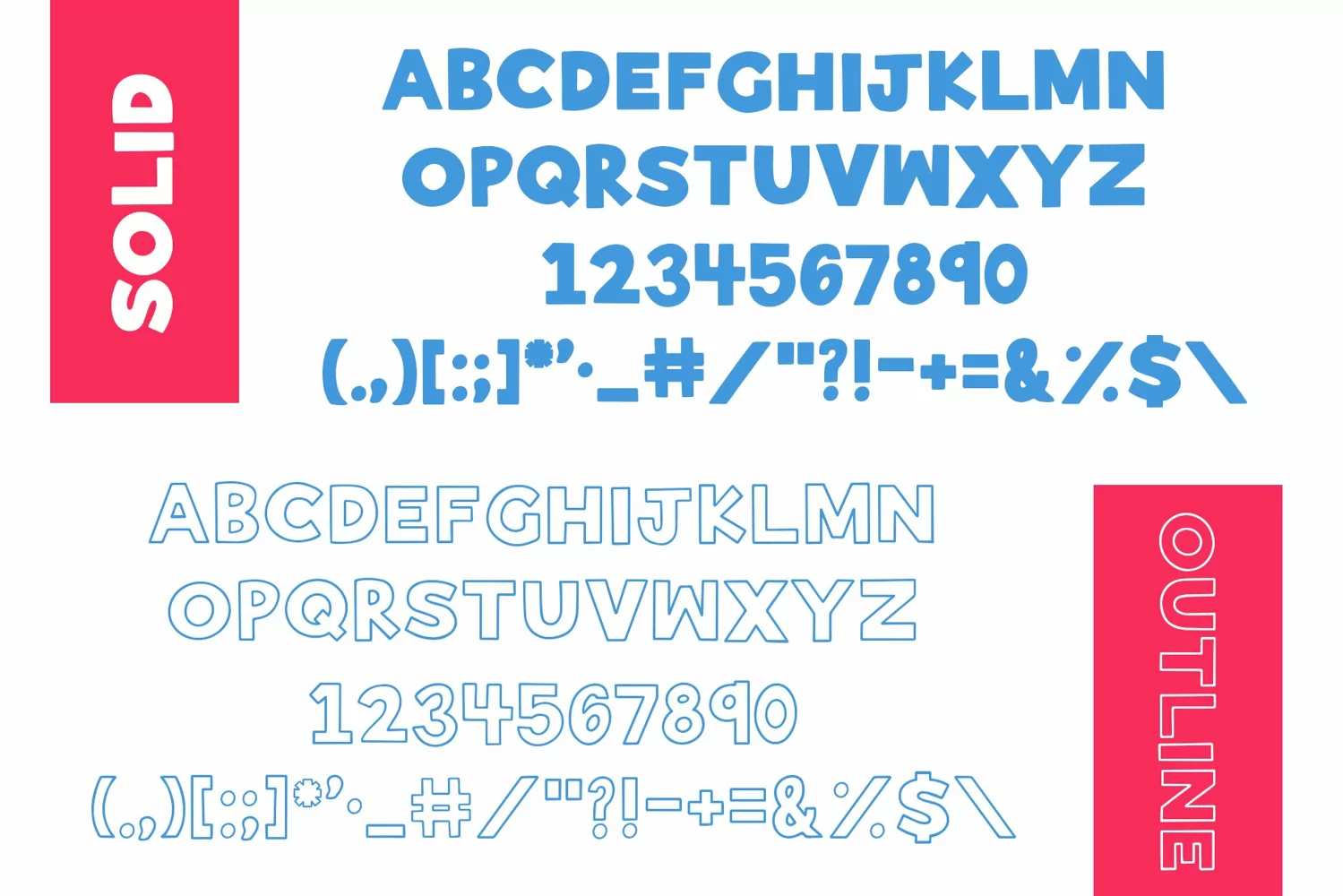
Say hello to POOL PARTY!A boldly fun display font with both a solid and outline version! Just type the outline font right on top of the solid font to create a fun effect! Pool party is awesome for social media, branding, logo, and web design, just to name a few!
Pool Party font has a limited punctuation set. All punctuation included can be seen on the characters list in the mock ups above!Enjoy!